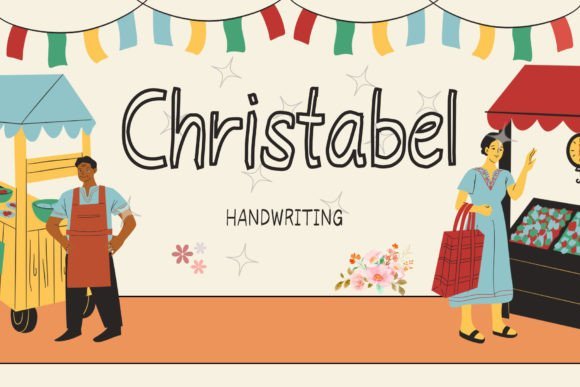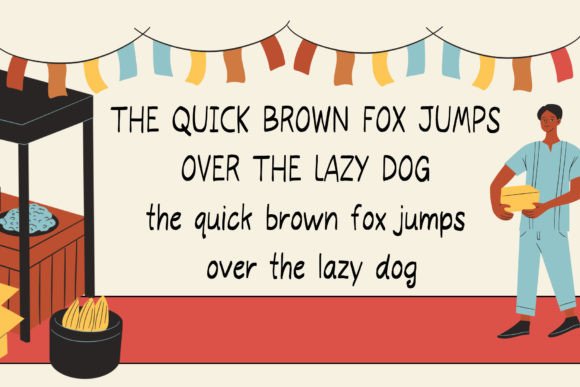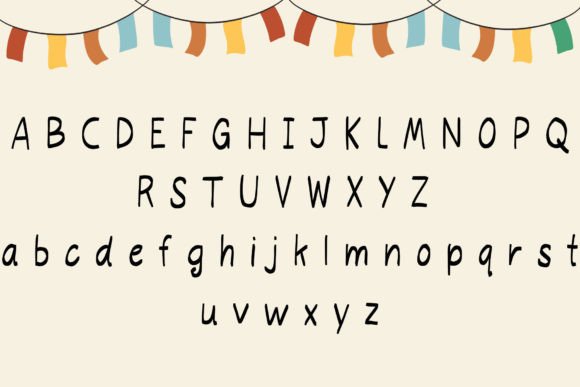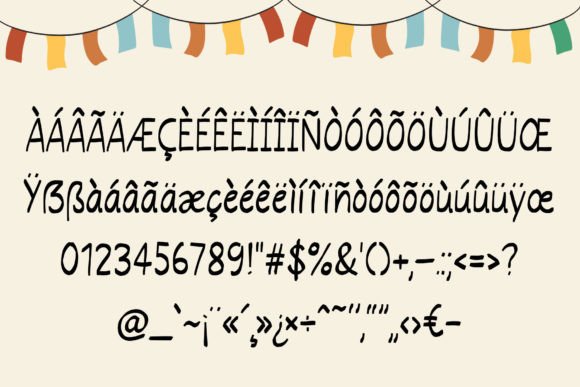
Unleash Your Creativity with the Christable Font
| 👤 Author | surachet2548 |
One font that can help bring your creative vision to life is the Christable Font – a delightful, handwritten sans-serif that exudes playfulness and charm. Perfect for invitations, cards, logos, and any other fun projects, this font is sure to add a personal touch to your designs. For designers, the Christable Font offers a valuable asset: the ability to convey personality and whimsy in a single stroke.
Christable Font Key Features
- Font Family: Christable is a sans-serif font family designed for modern and clean typography.
- Language Support: Christable font family supports a wide range of languages, including Latin, Cyrillic, Greek, and many more, making it an ideal choice for global branding and marketing materials.
- Unique Characteristics: Christable font features a unique blend of modern and minimalist design elements, with subtle rounded corners and a clean, open feel that makes it perfect for use in logos, titles, and headings.
- Font Weight and Style: Available in 6 font weights (Light, Regular, Medium, Semi-Bold, Bold, and Black) and 3 font styles (Regular, Italic, and Bold Italic), providing flexibility for designers to create a wide range of visual effects.
Christable Font Review
Overall, I think Christable Font has some great qualities that make it a solid choice for designers. ✨ The font’s elegant and modern feel is perfect for a variety of projects, from branding to digital products. ✨ The high-quality vector files ensure crisp and clear rendering, even at large sizes.
One of the standout features of Christable Font is its versatility. ✨ It comes in multiple weights, from light to bold, making it easy to create a cohesive visual identity for your project. The font also supports a wide range of languages, which is a bonus for international projects.
While Christable Font has many great features, there are some limitations to consider. ⚠️ The font’s italic styles can sometimes appear a bit inconsistent, which may be distracting in certain contexts. ⚠️ Additionally, the font’s condensed versions may not be ideal for projects that require a lot of text, as they can be quite narrow.
Despite its limitations, I think Christable Font is a great choice for designers who want a modern, elegant font that’s easy to use. With its high-quality vector files, versatility, and wide language support, it’s a solid addition to any design toolkit.
Christable Font works well for creating elegant and modern designs in Canva.
Christable Font is ideal for creating professional-looking designs in Adobe Creative Cloud apps.
Christable Font adds a touch of sophistication to your presentations and documents.
Some tips for getting the most out of Christable Font include:
- Use it for titles and headings to add emphasis and style.
- Pair it with a clean and simple font for body text.